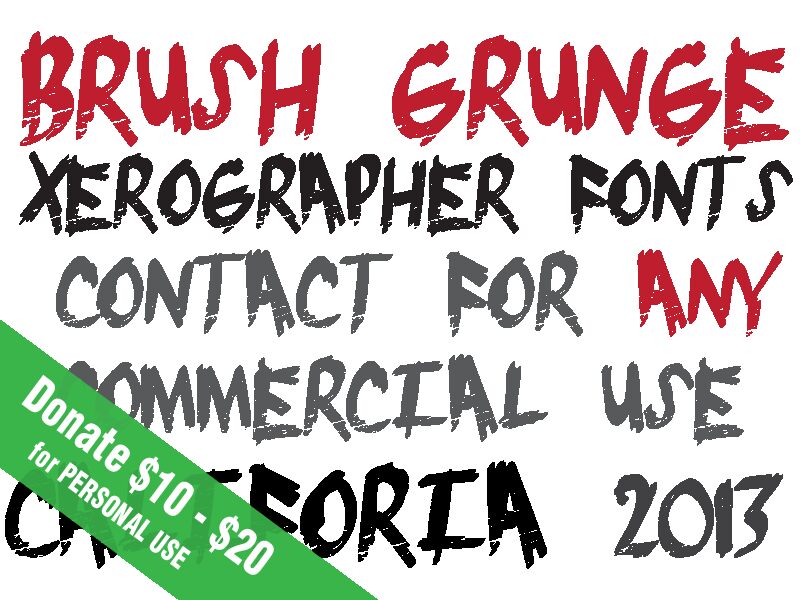
Brush Grunge by Xerographer Fonts is a free eroded brush display font with broad, forceful capitals. Jagged edges and scratched gaps cut through the strokes like dry paint dragged across a rough surface. The uneven forms retain a quick, physical painted quality.
That scraped texture can echo distressed photography and torn-paper artwork in music posters or album packaging. It also suits skate merchandise and action-sports branding. The repeated slash-like scratches reinforce a scuffed, photocopied graphic theme across those projects.